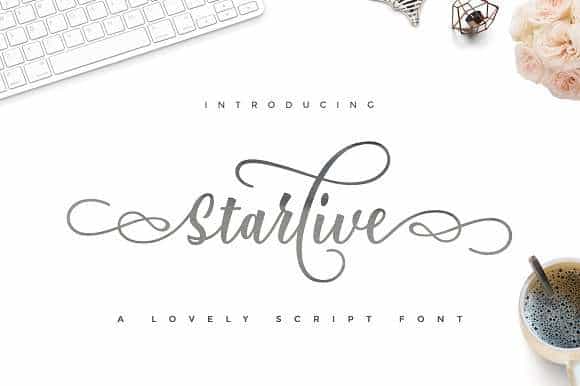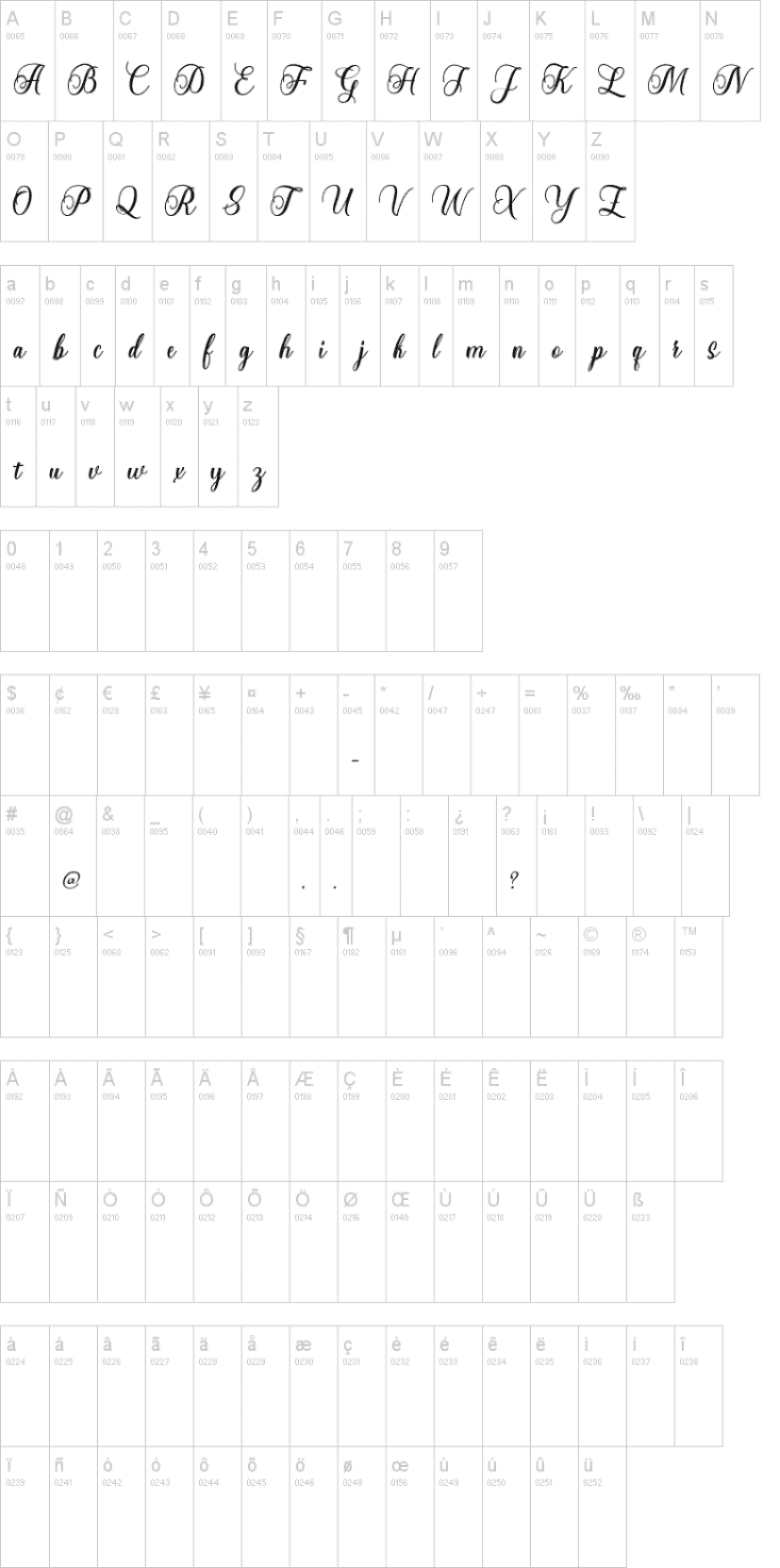
Starlive Script is a beautiful Calligraphy font that has been created by Cooldesignlab and it is available as a free download for personal use only. The free version offers all the English alphabets in both upper and lower case along with a few special characters as well.